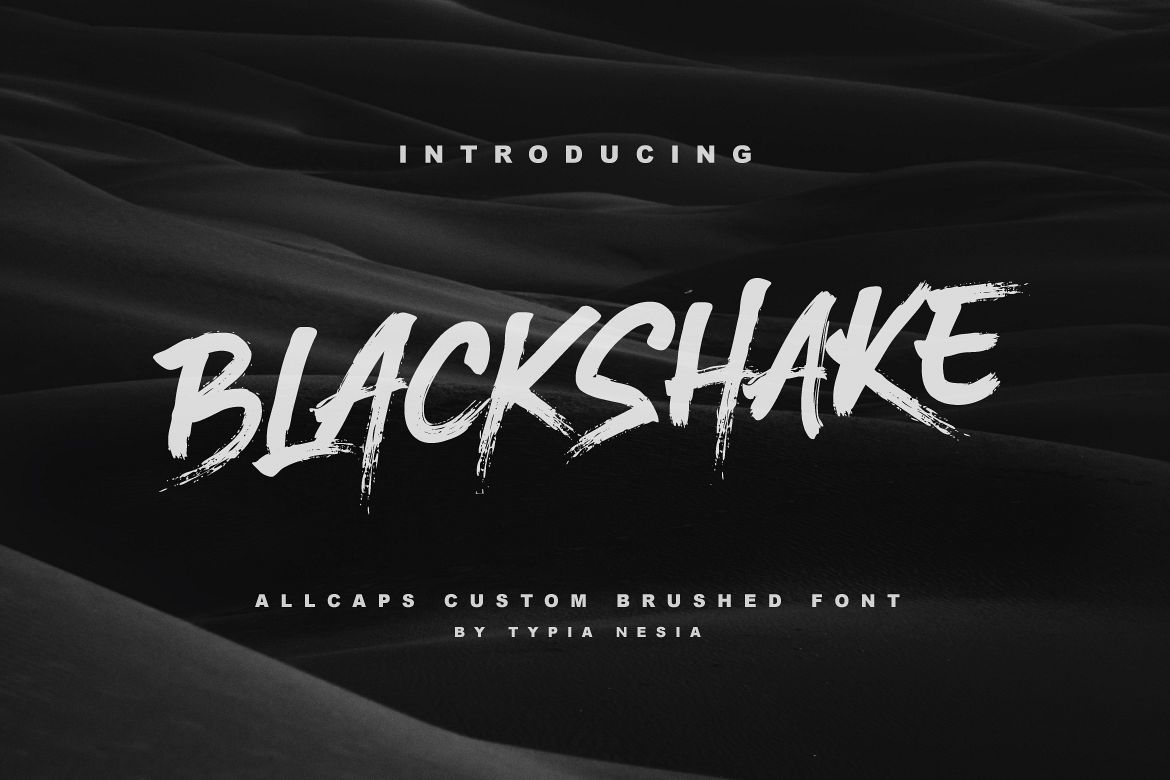
BlackShake is a dry brushed / marker font.
It suitable for logo, branding, t-shirt, poster, packaging, book cover, hipster design, cards, and any brush lettering needs and more.
BlackShake